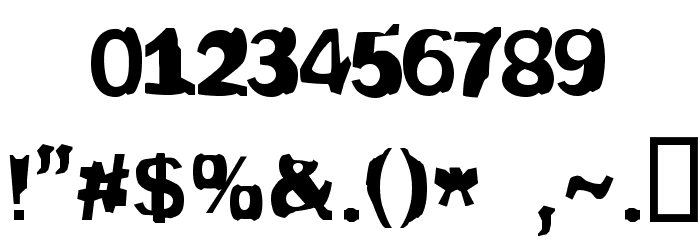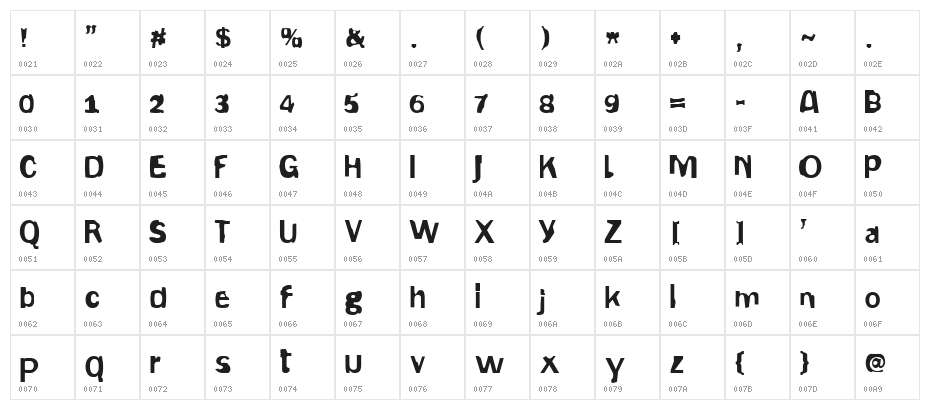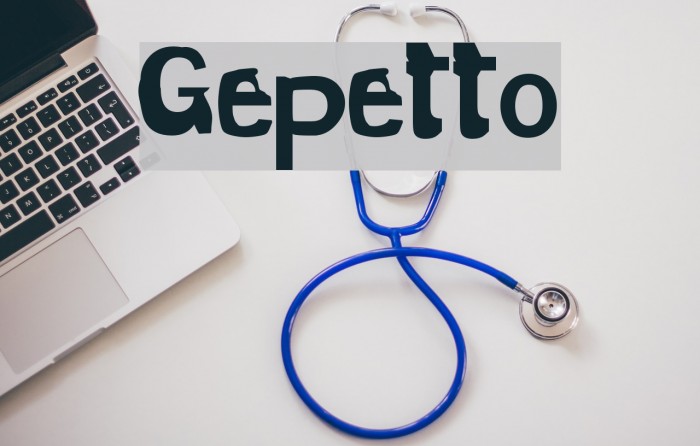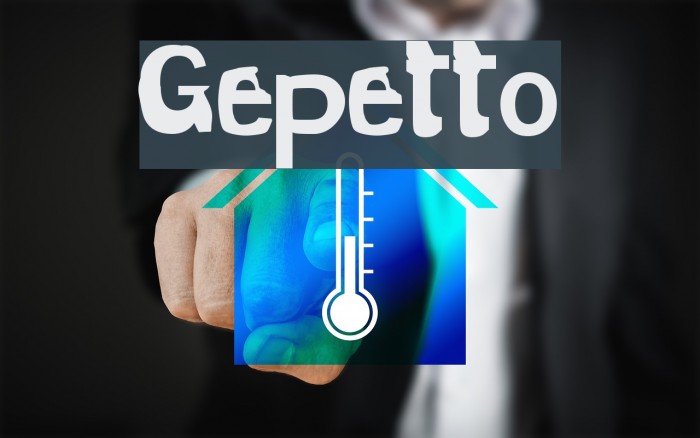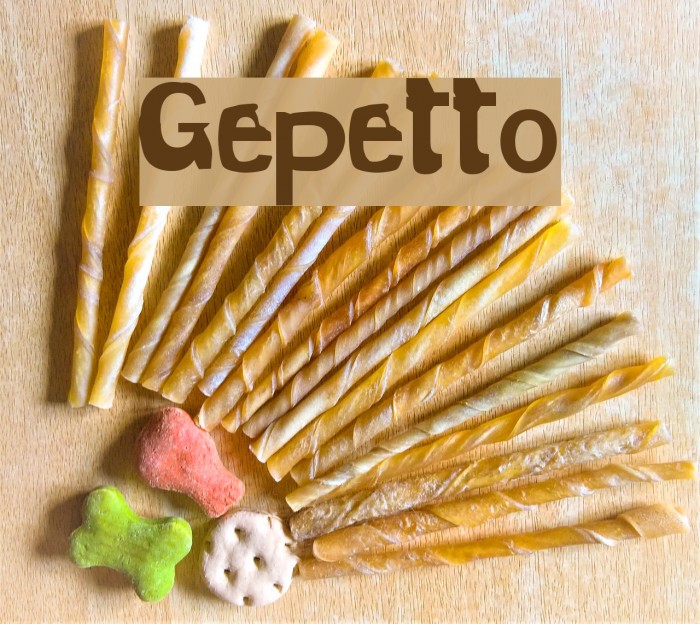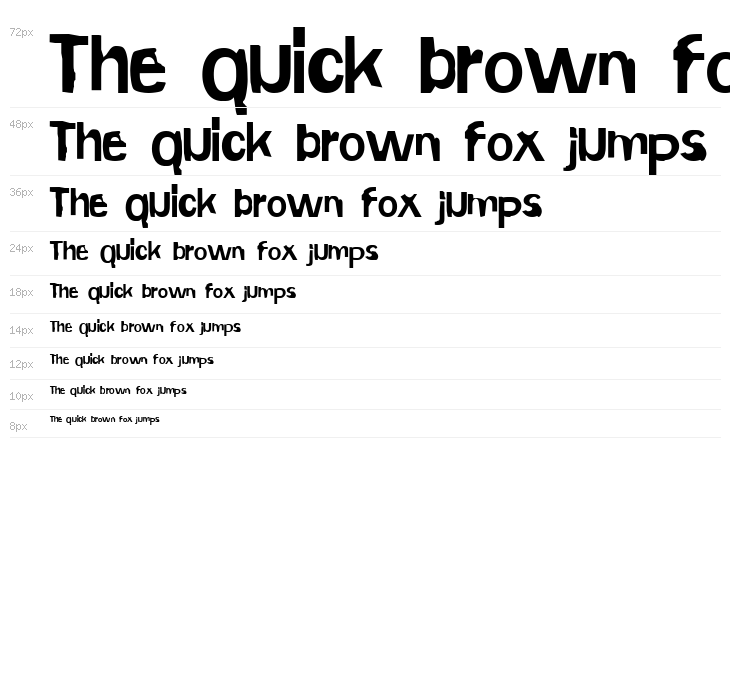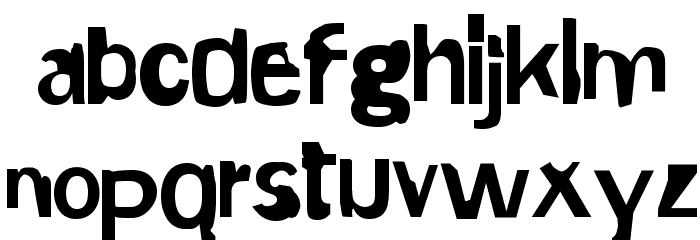
Gepetto Font
Gepetto Description
This font features a playful and bold design with a distinctly irregular and handcrafted appearance. The characters exhibit a quirky, uneven stroke that adds a sense of whimsy and creativity. The uppercase and lowercase letters maintain a consistent style, with exaggerated curves and varying line thicknesses that give the font a dynamic and lively feel. The numerals and special characters are designed to match the overall playful aesthetic, making it suitable for projects that require a fun and informal touch. The font's unique style makes it stand out, offering a fresh and engaging visual experience.
| Overall Style | Playful, Creative |
| Proposed Projects | Ideal for children's books, playful branding, creative posters, and informal invitations. |